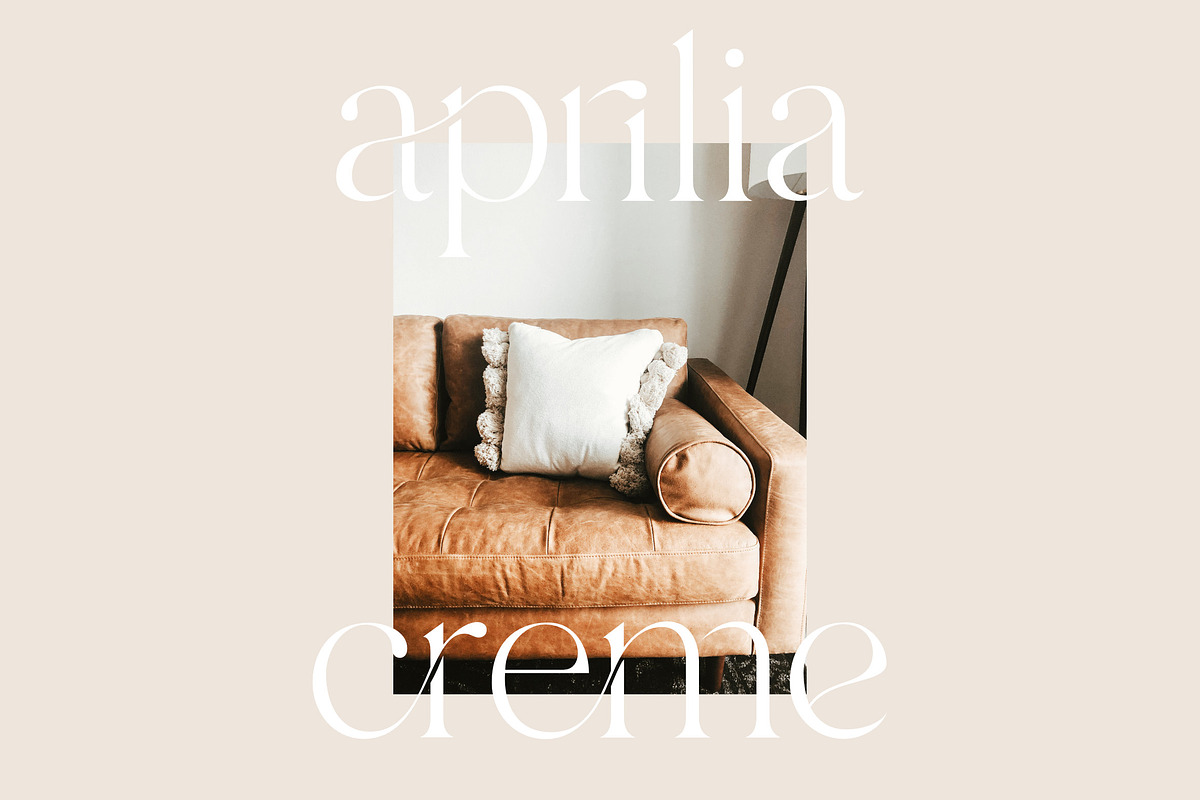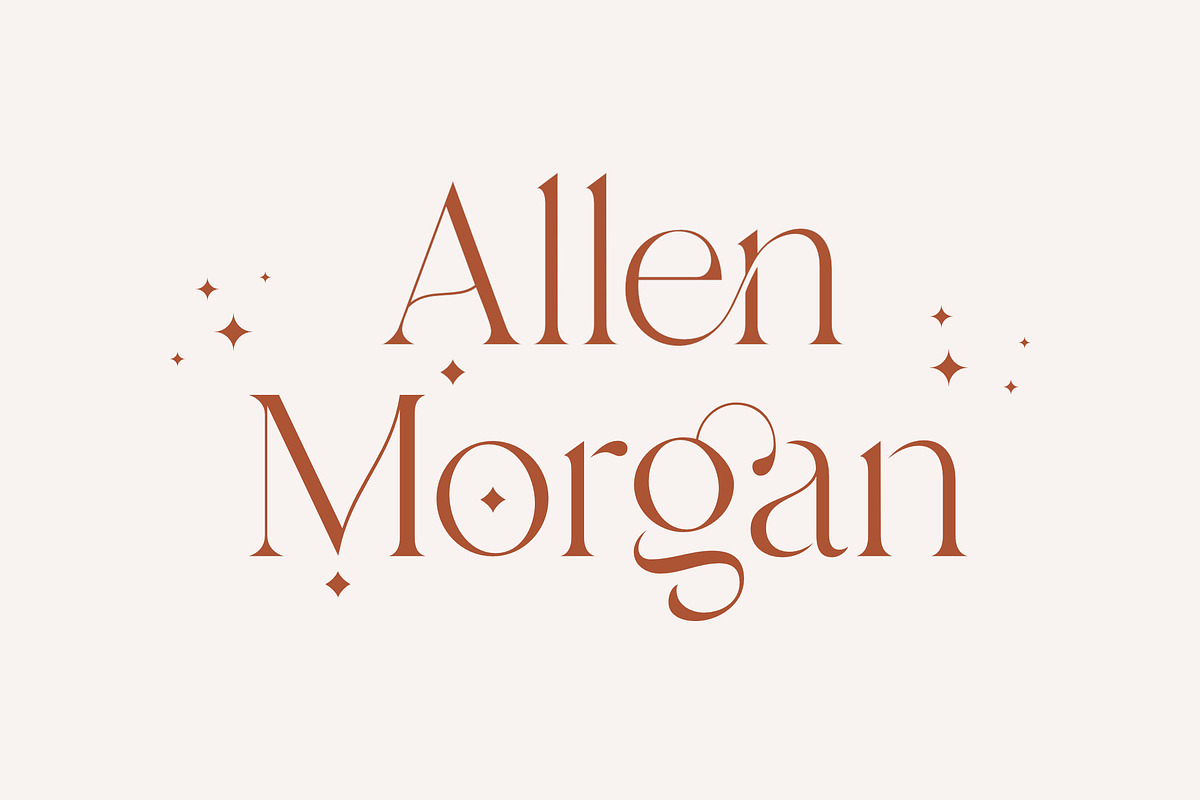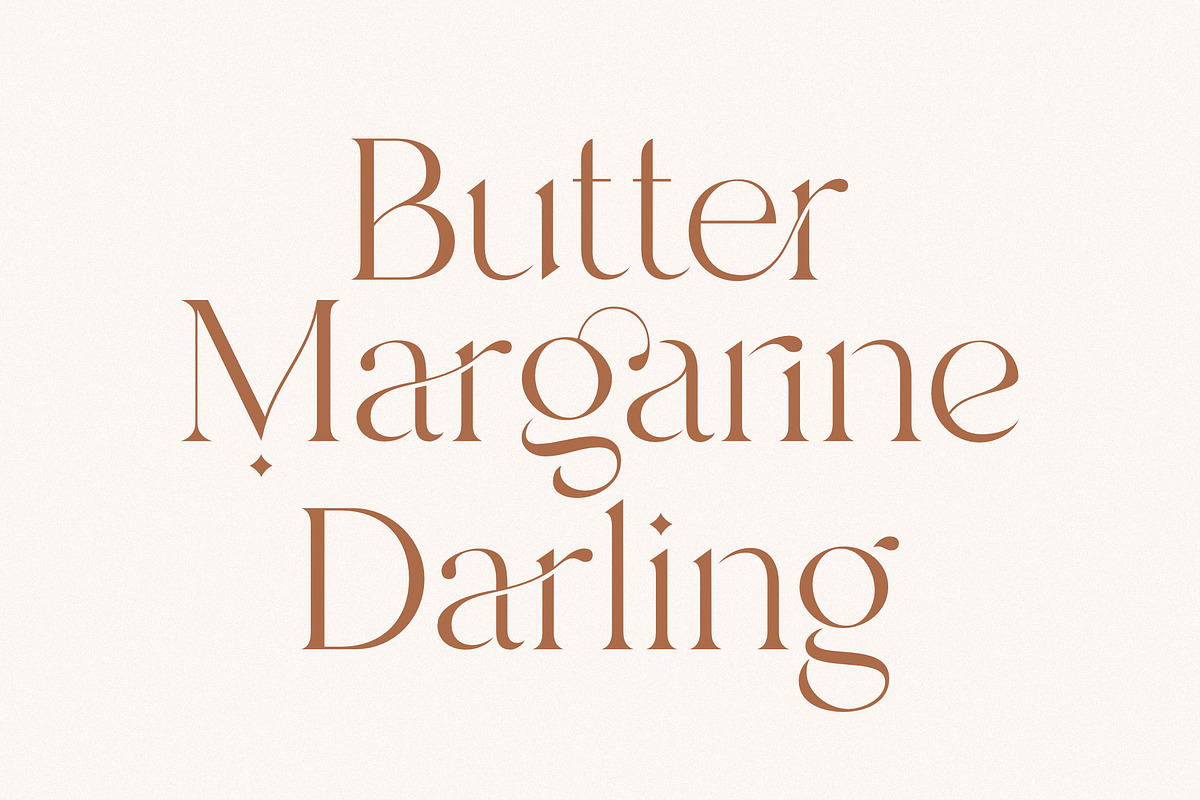
Branch – Elegant Ligature Font by Sans and Sons. Introducing our new “Branch” Modern Ligature with Elegant Style this is perfect for branding, logos, invitation, masterheads and more.
- Alternates
- Ligatures